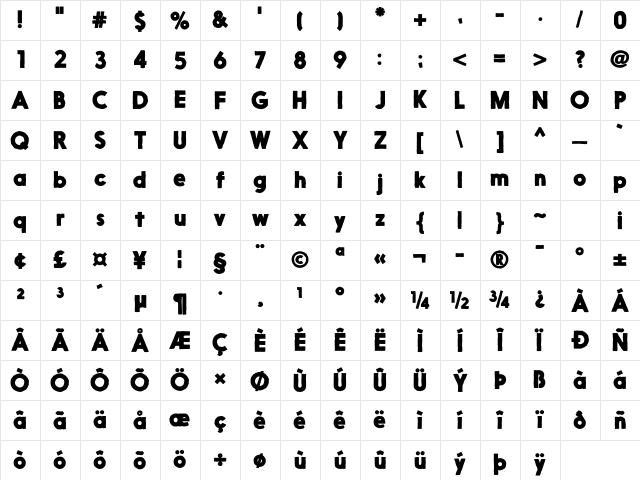
Complete Nanami HM Solid Heavy glyph index. Displaying only characters natively supported by Nanami HM Solid Heavy font.
Nanami HM Solid is a composed and adaptable typeface that performs quietly and consistently across a wide range of design contexts.
Pro Tip: Use Nanami HM Solid in both headline and body roles to test its range before committing to a single application.